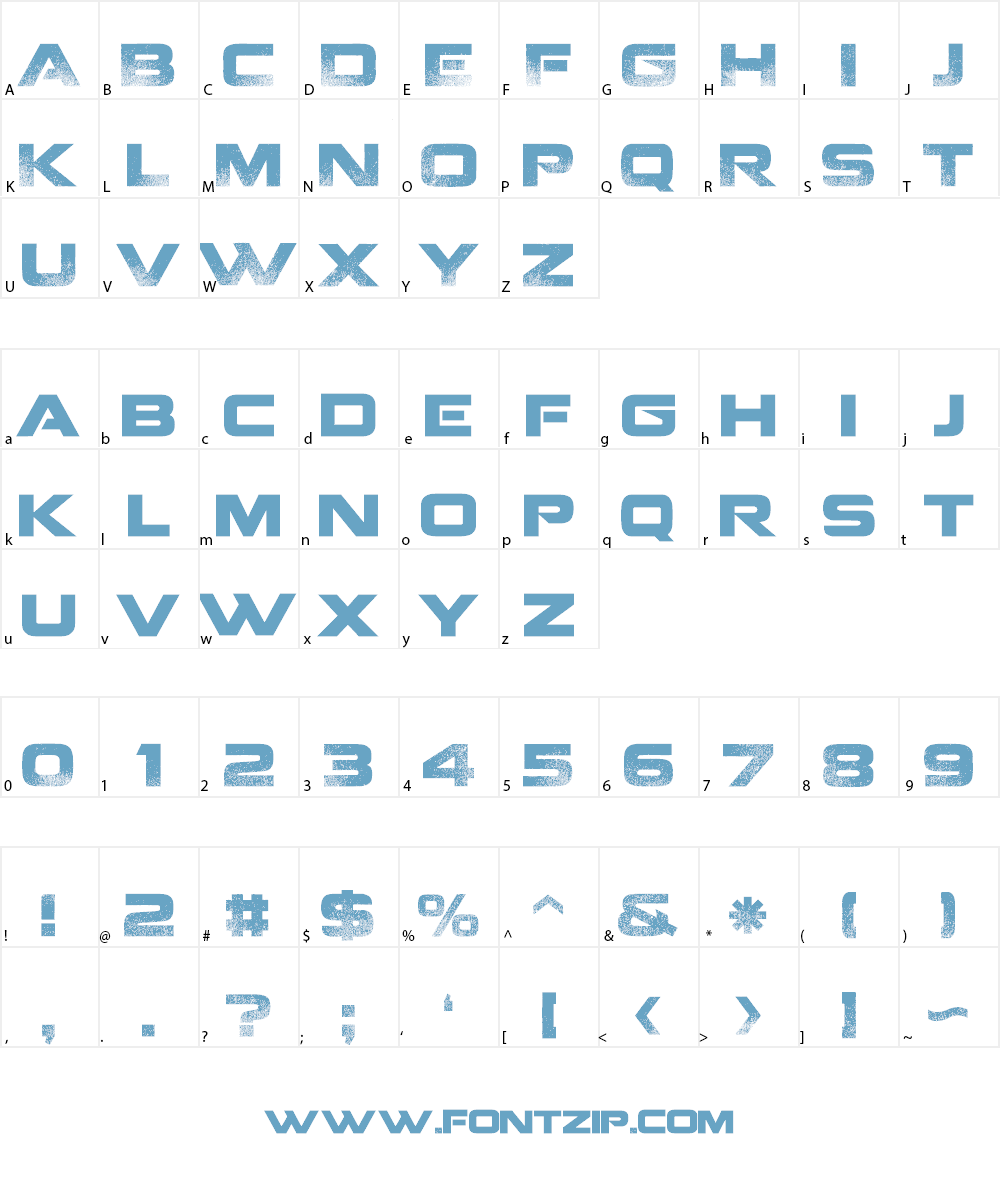
Coalition (Of Governments) (COG) -- Version 2
July 2011 Release
Upper Case: Decayed type
Lower Case: Solid type
Made as a homage to the excellent Gears of War series of Games for the Xbox 360 and PC.